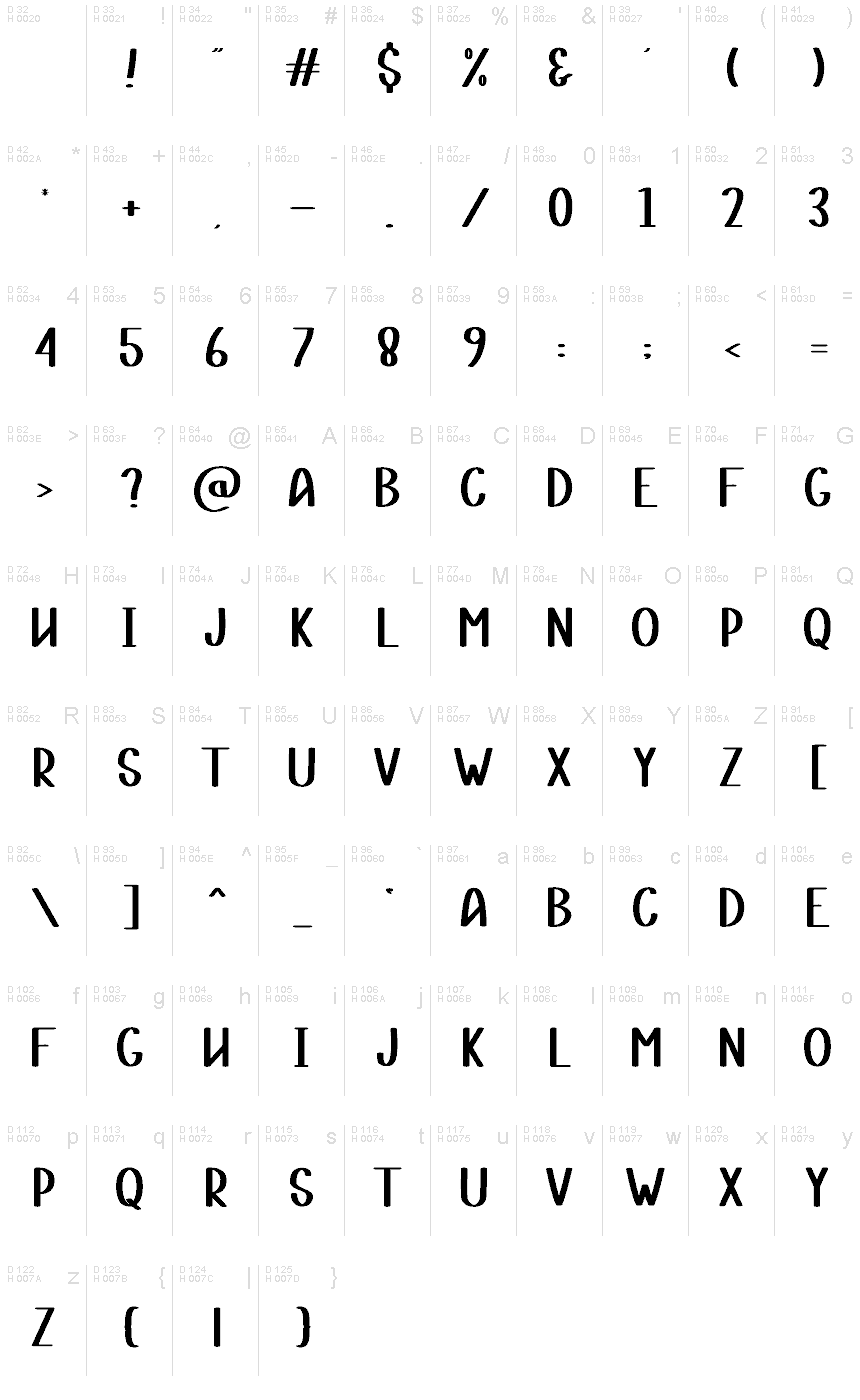
Stand Straight
Stand Straight font by Andi Moz is a free handwritten font flowing with unique character shapes and geometric influences. The modern typeface can turn regular text into its bewitching artistic flair and contemporary edge.